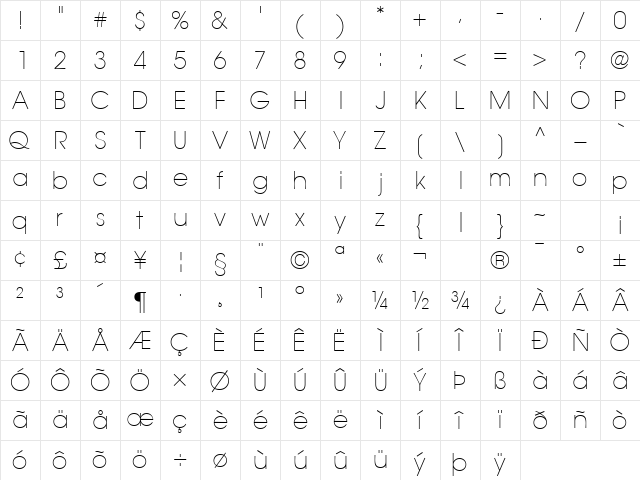
TrendexLightSSK Regular
TrendexLightSSK Family
Design Context for TrendexLightSSK
TrendexLightSSK is a composed and adaptable typeface that performs quietly and consistently across a wide range of design contexts. Its slender proportions lend an understated elegance to any composition.